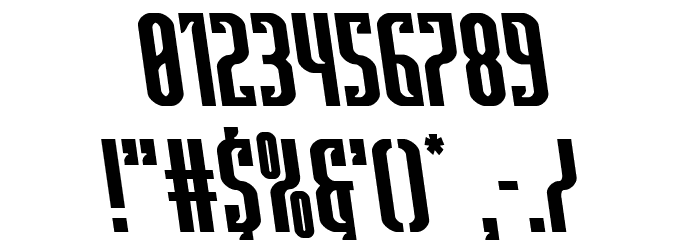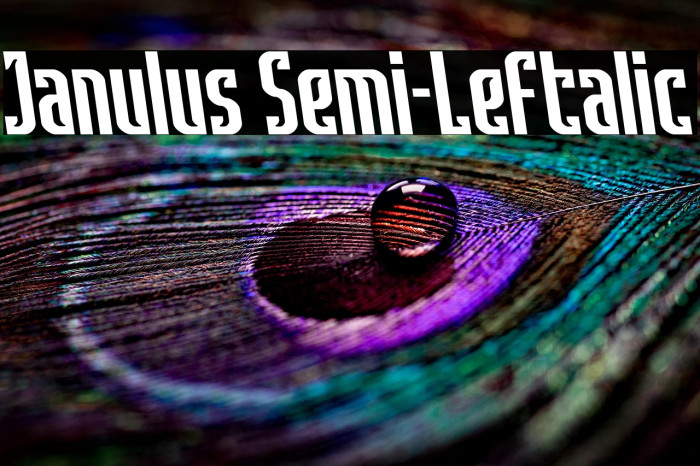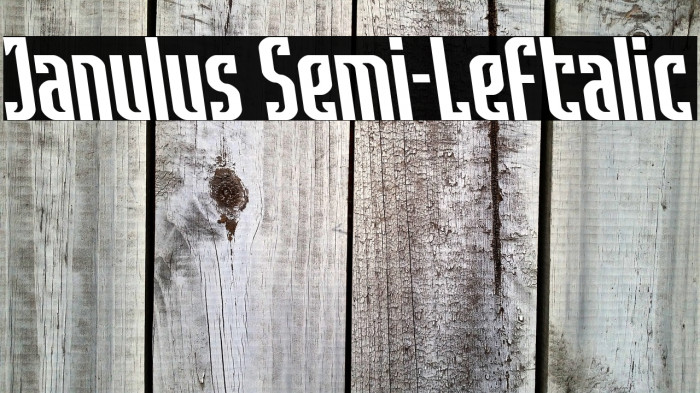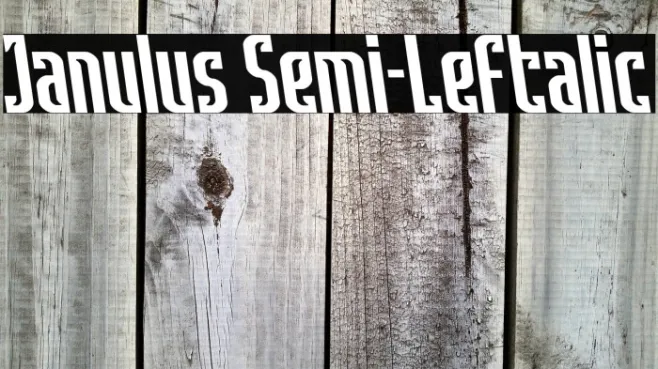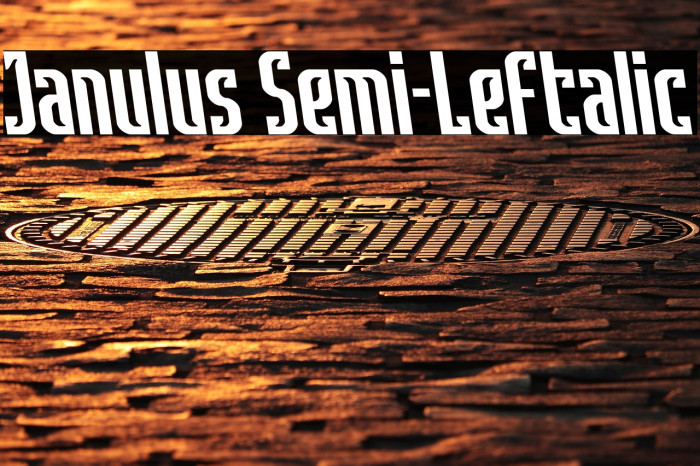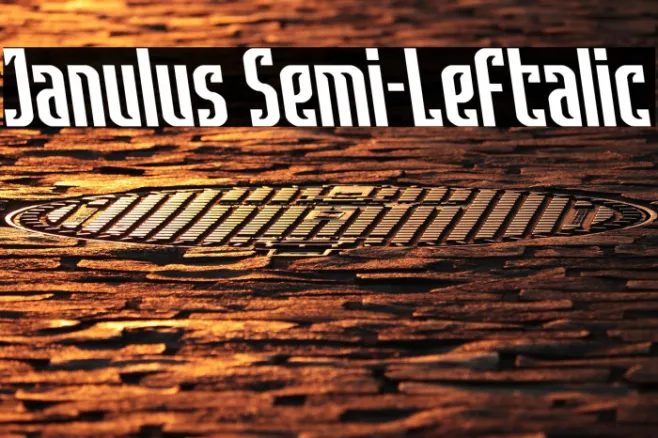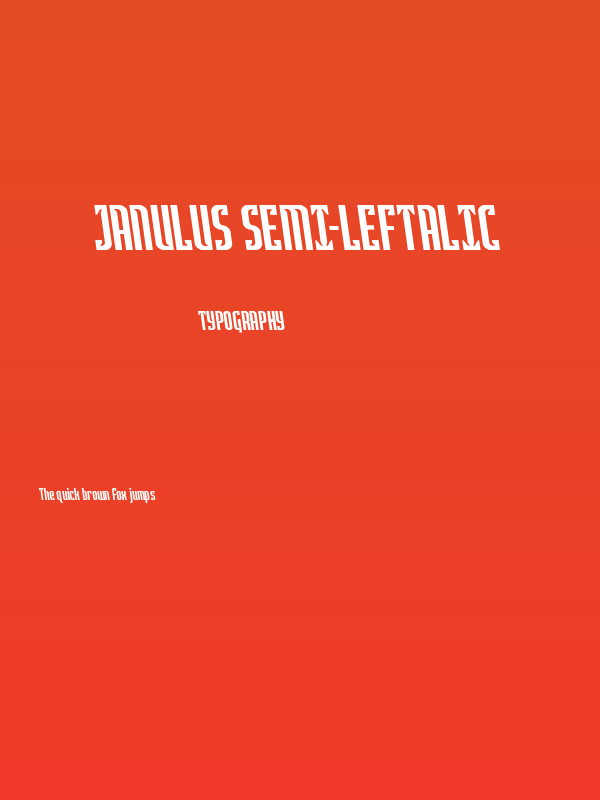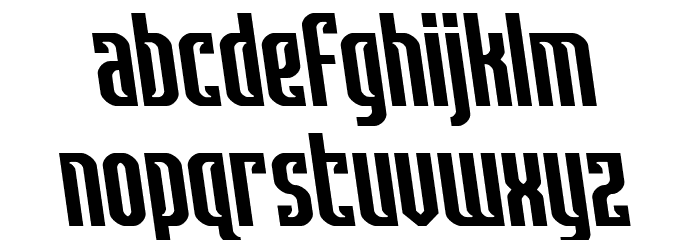
Janulus Semi-Leftalic Font
Janulus Semi-Leftalic Description
This font exhibits a bold and dynamic style with a distinct leftward slant, giving it a unique and energetic appearance. The characters are tightly spaced, enhancing the compact and impactful look. The uppercase letters feature sharp, angular edges, while the lowercase letters maintain a consistent style with slightly softened curves. The numerals are bold and clear, ensuring readability. Special characters are designed with the same boldness and angularity, making them stand out. The overall design is modern and eye-catching, suitable for projects that require a strong visual presence.
| Proposed Projects | Ideal for branding, posters, and headlines where a strong, modern impact is desired. |